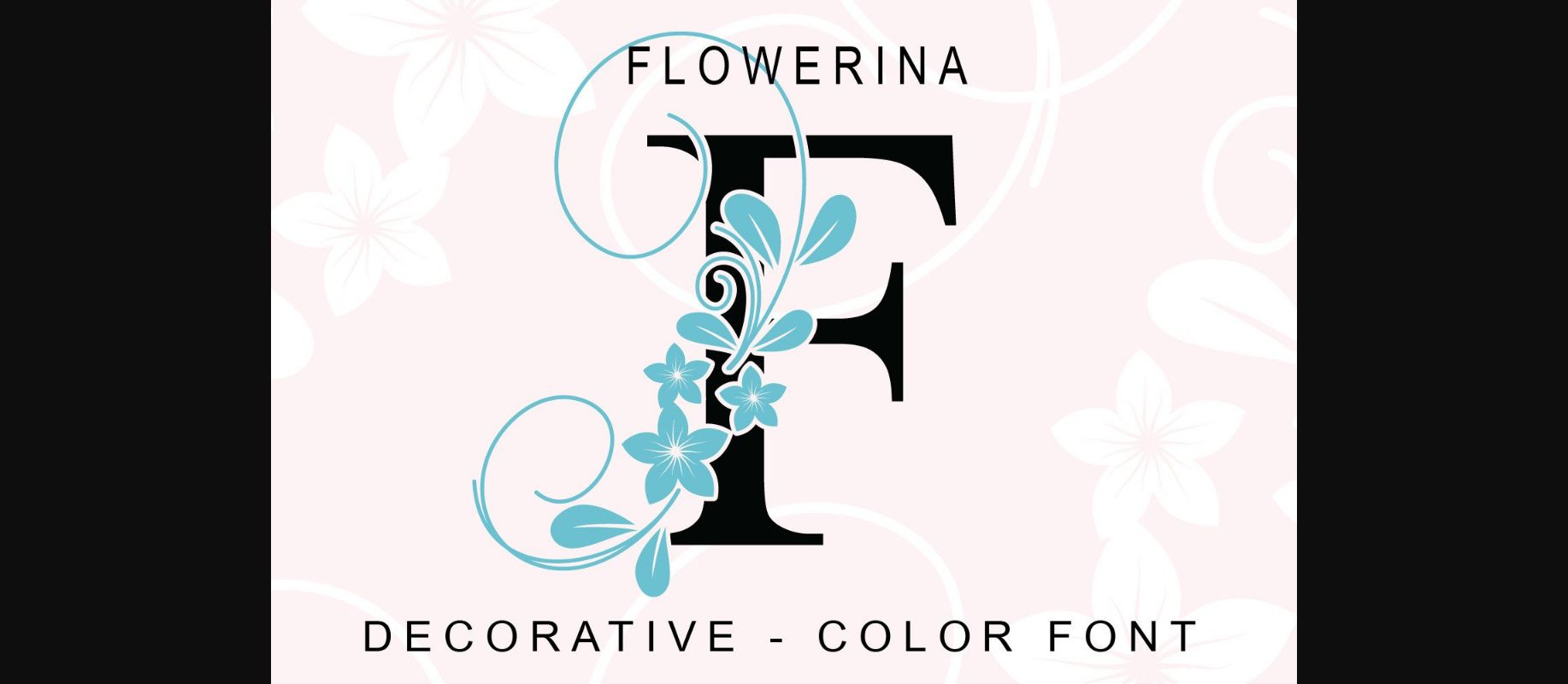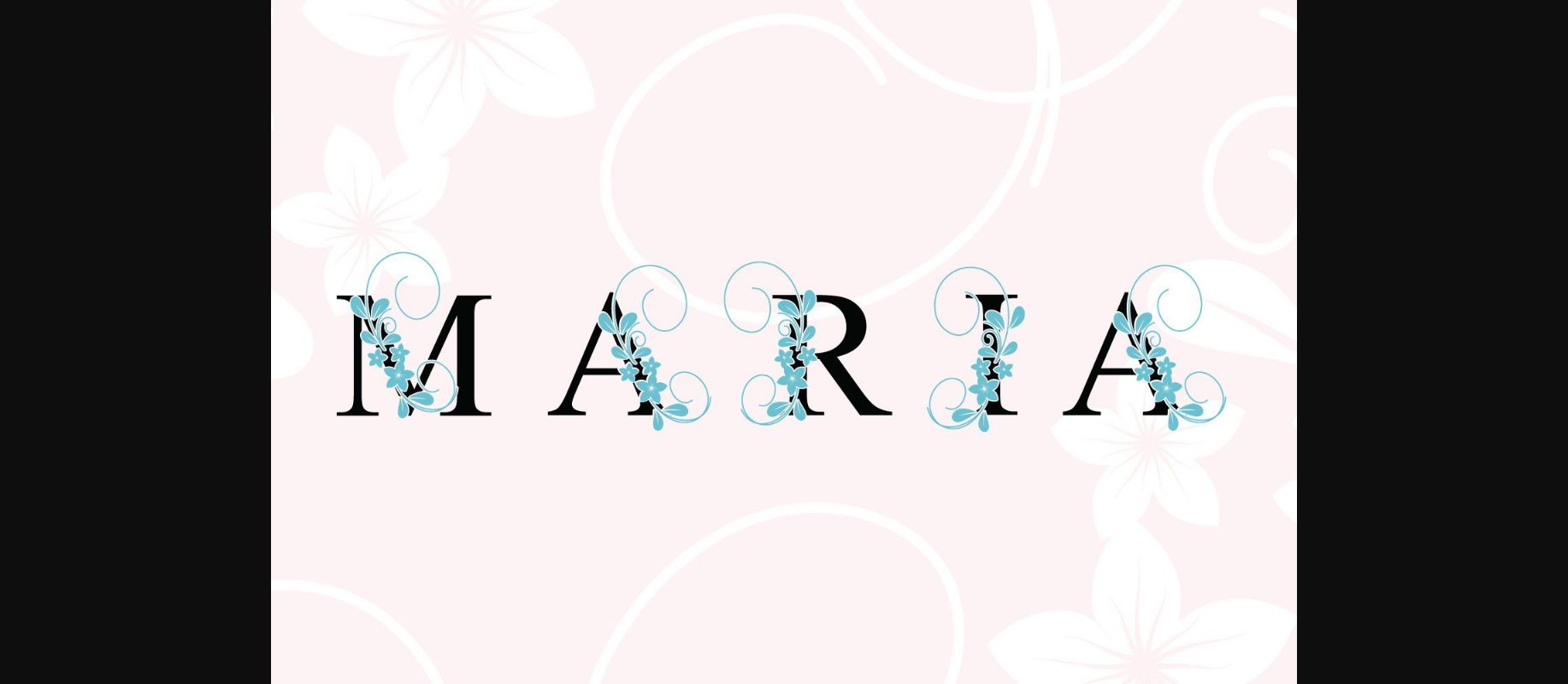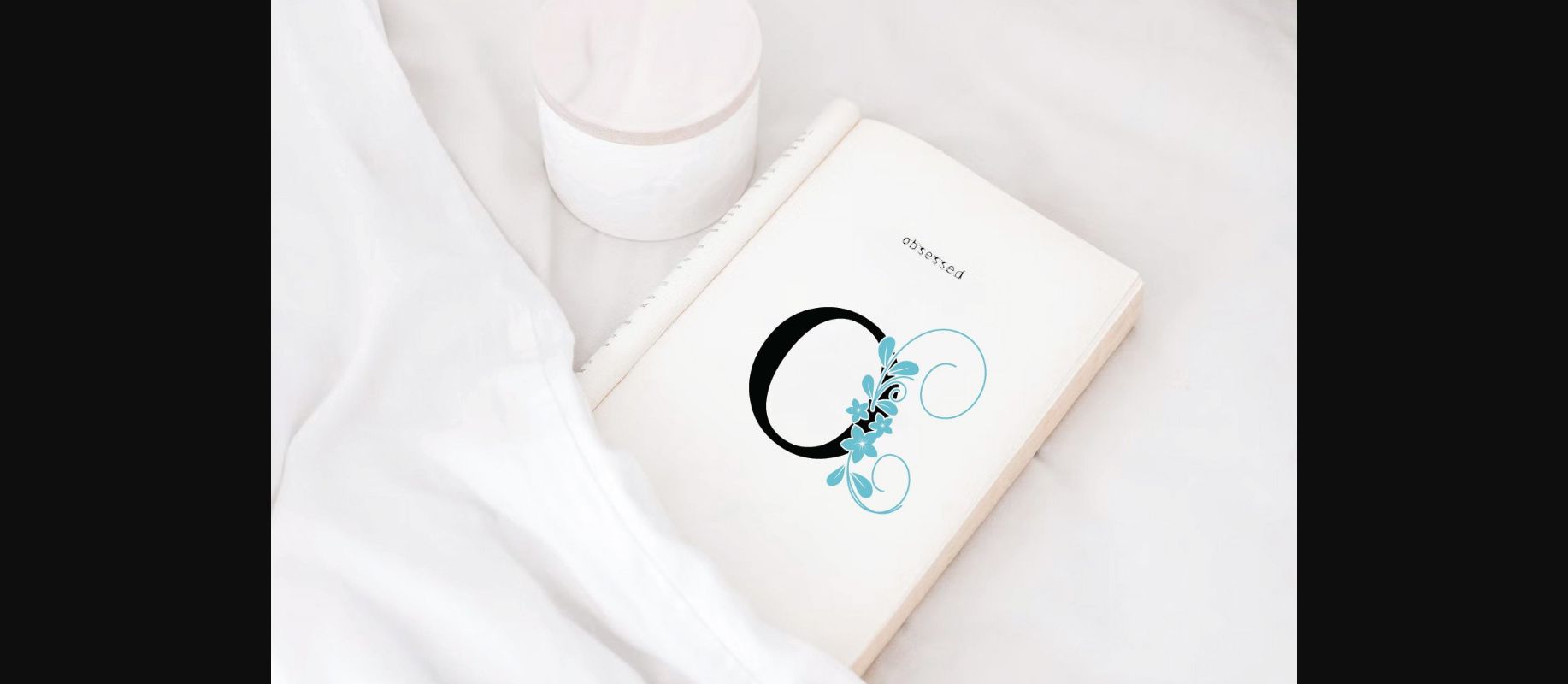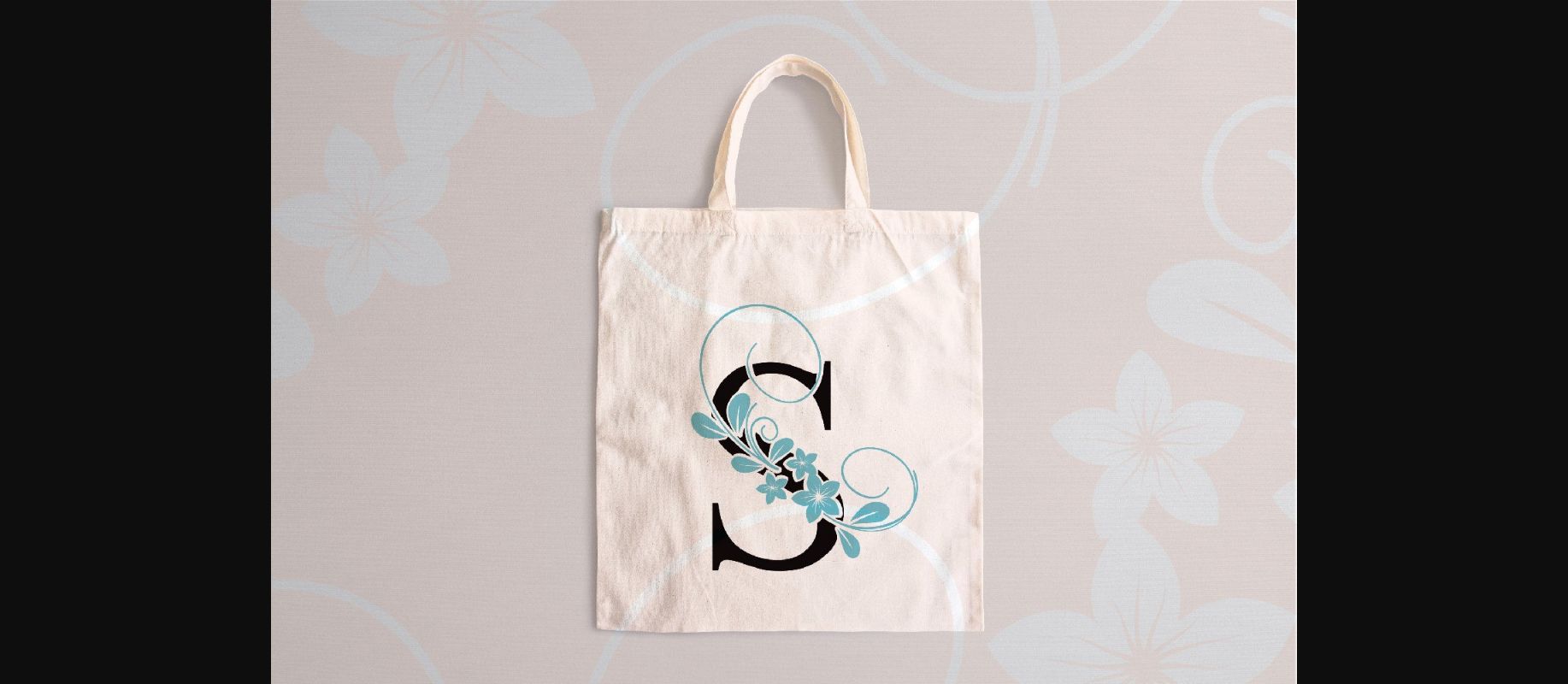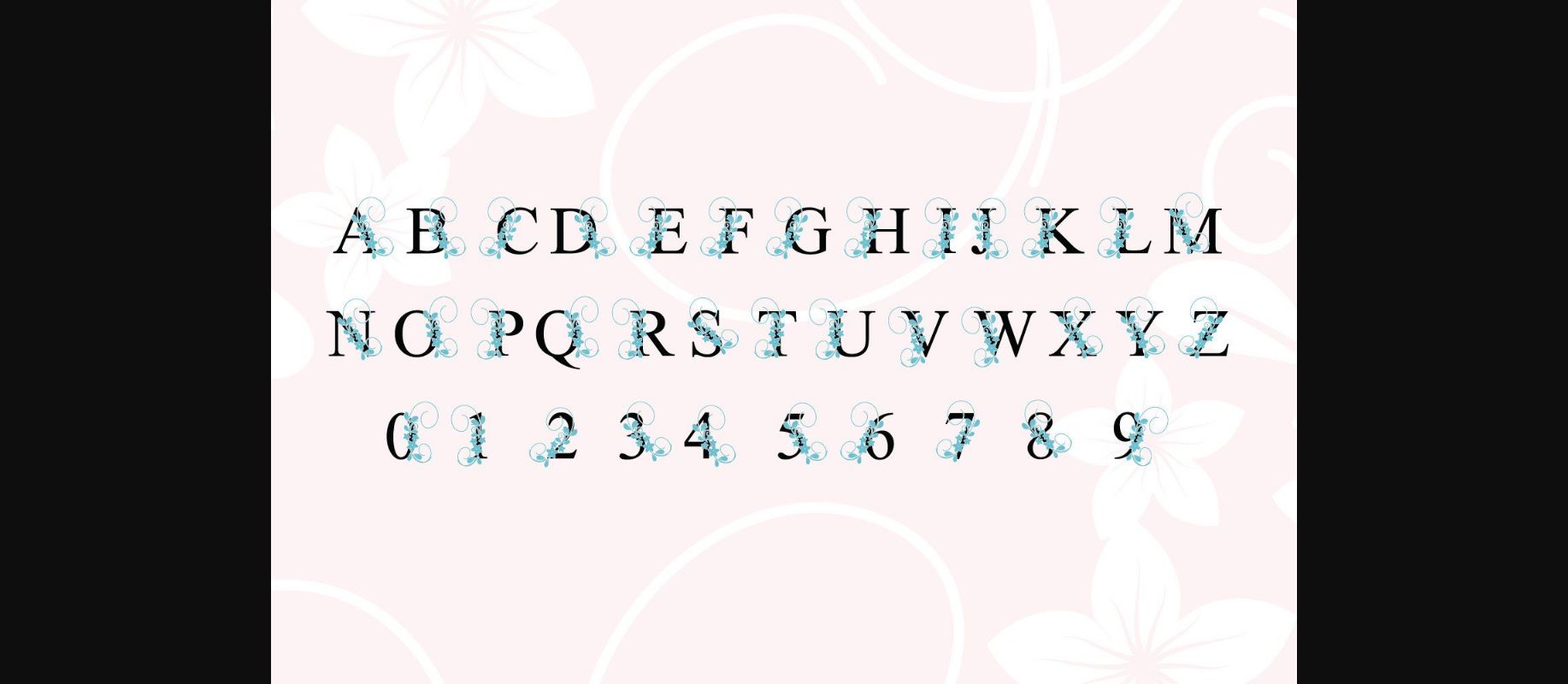
HomeDecorative FontsFlowerina Font Decorative Fonts Flowerina Font FacebookXPinterestWhatsApp 1 of 7 ... Flowerina Font Poster 2... Flowerina Font Poster 3... Flowerina Font Poster 4... Flowerina Font Poster 5... Flowerina Font Poster 6... Flowerina Font Poster 7... About Flowerina Font Flowerina is a gorgeous and stylish monogram decorative font. Whatever the topic, this font will be a great asset to your font library, as it has the potential to enhance any creation. DOWNLOAD NOW People also explored Alfaqix Servo Allegany Font Baby Whale Monogram Font Flower Stories Font Olive Font Monogram Font Mountain Font Sweet Baby Font Hello Mother Font 294 0 TagsFlowerina Font Previous articleFall Groovy FontNext articleGroovy Grunge Snowy Font LEAVE A REPLY Cancel reply Comment: Please enter your comment! Name:* Please enter your name here Email:* You have entered an incorrect email address! Please enter your email address here Website: Save my name, email, and website in this browser for the next time I comment. Personal Use Free Antaro Personal Use Free Read more about this font Blast Personal Use Free Read more about this font Hello December Personal Use Free Read more about this font Still Time Personal Use Free Read more about this font BLOG How to Cut Any Font on Cricut: Convert a Font to SVG (Free) Turn any font into a clean SVG so it cuts crisp on Cricut - a quick 3-step workflow using a free font-to-SVG tool. Free Fonts Risk: Why Free Fonts Can Be Dangerous for Designers Where to Buy American Fonts Online in 2024 Top 10 Handwritten Fonts That Elevate Your Designs